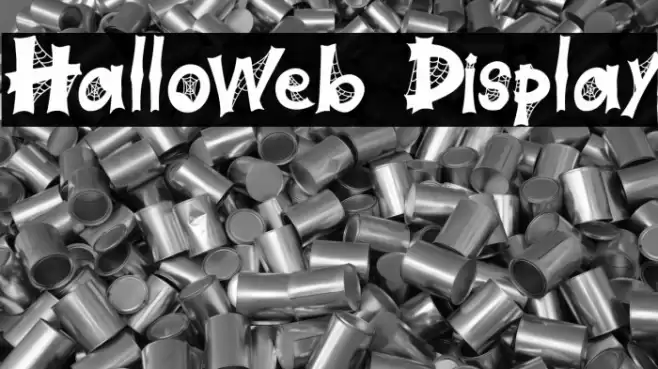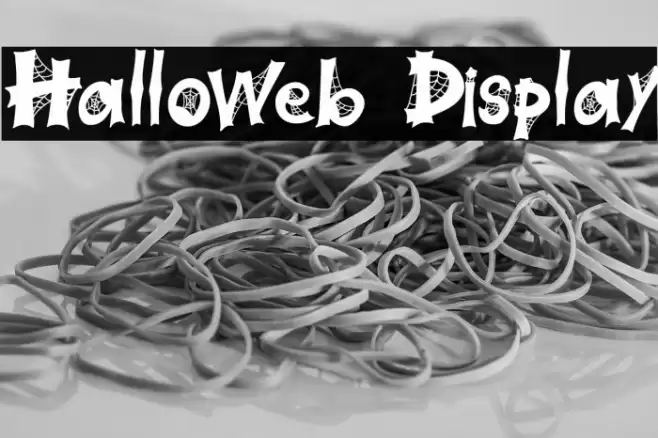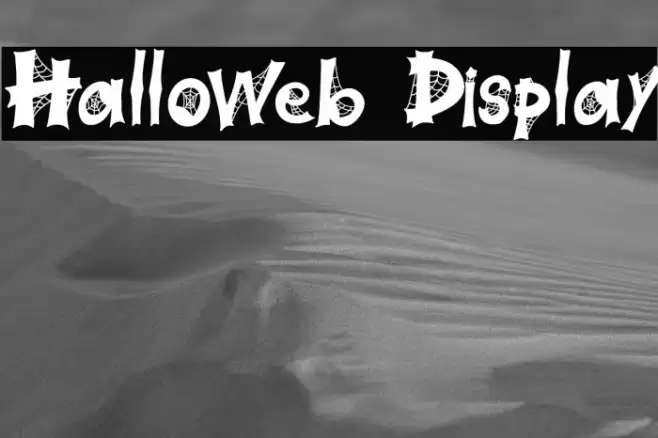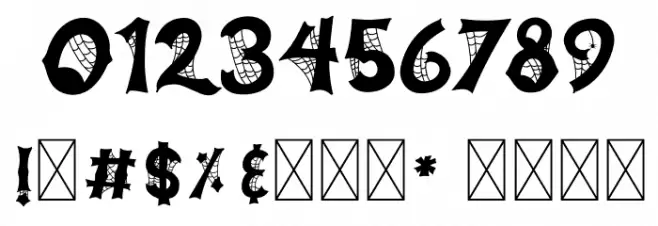
Halloweb Display Font
Halloweb Display Description
This font features a playful and spooky design, incorporating cobweb elements into each character, creating a Halloween-themed aesthetic. The letters are bold and slightly irregular, enhancing the eerie and whimsical feel. The uppercase and lowercase letters maintain a consistent style, with the cobwebs adding a decorative touch that is both intricate and eye-catching. The numbers and special characters follow the same theme, making the font cohesive and suitable for themed events or projects. The overall design is unique and captures the essence of Halloween with its creative use of web motifs.
A spooky, cobweb-themed font perfect for Halloween designs from Uncategorized fonts.
- Proposed Projects: Ideal for Halloween invitations, themed posters, party decorations, and spooky branding projects.